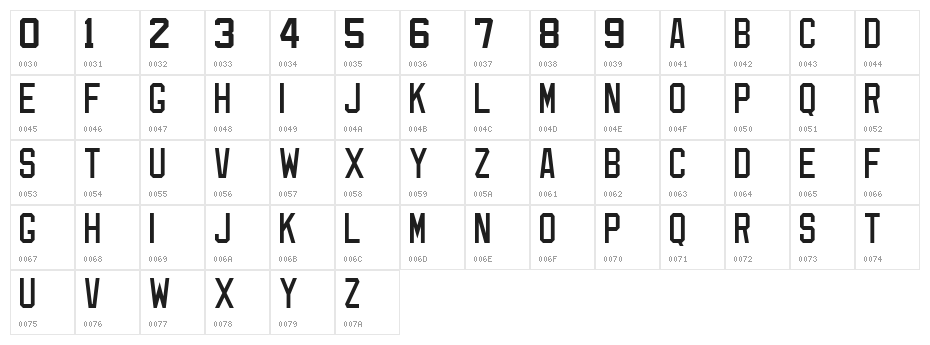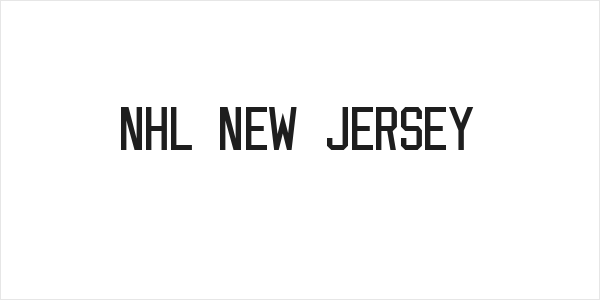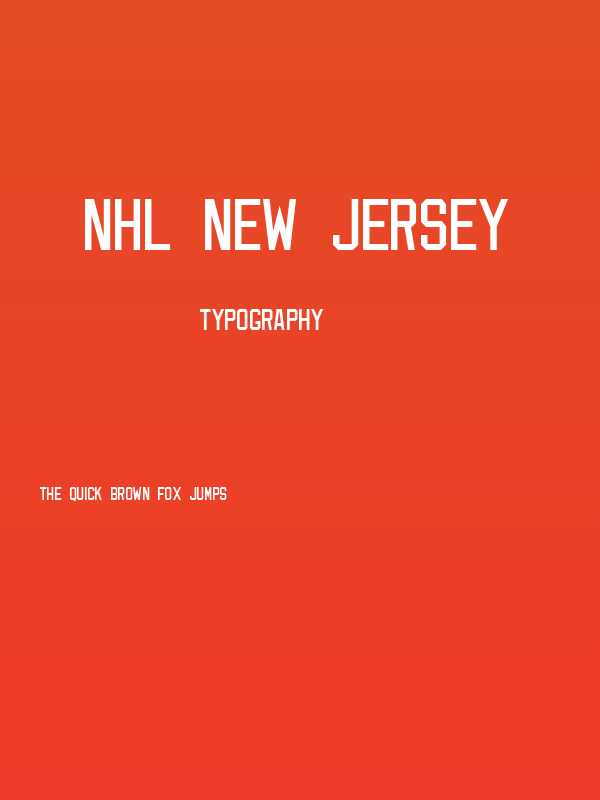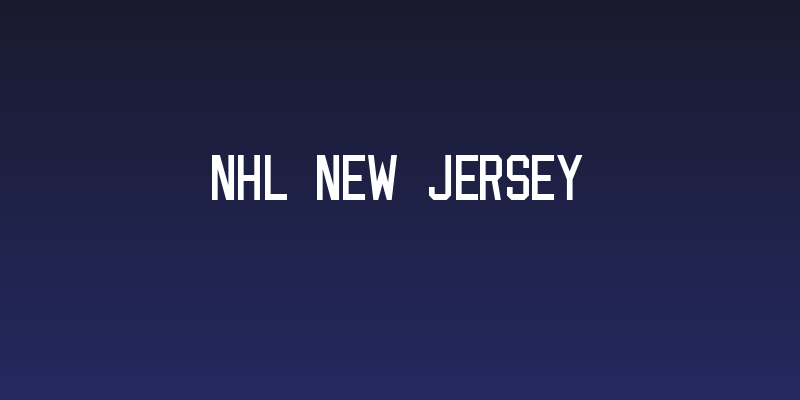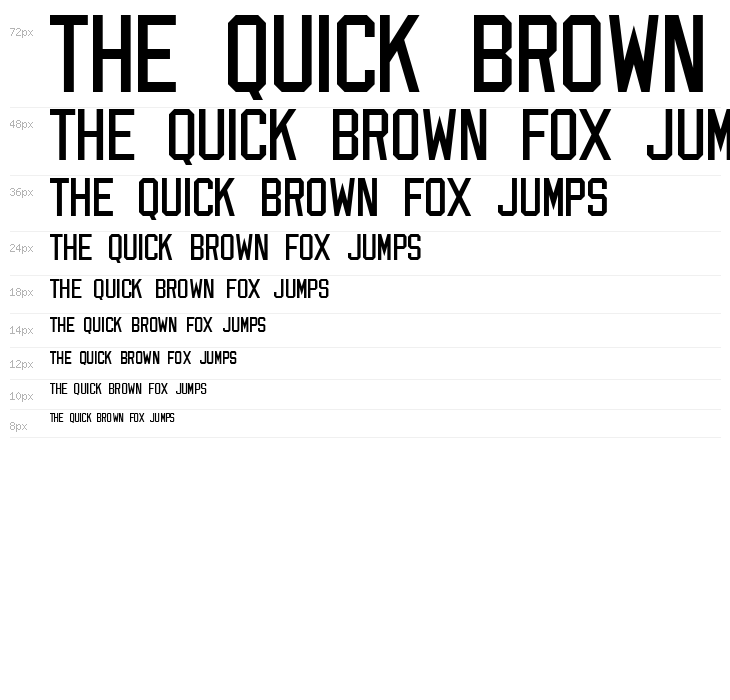
NHL New Jersey Font
NHL New Jersey Description
This font features a bold and geometric design with strong, angular lines and a modern aesthetic. The uppercase letters are uniform in height and width, creating a cohesive and structured appearance. The numerals are equally bold, maintaining the geometric style with sharp edges and consistent proportions. The overall look is clean and impactful, making it suitable for projects that require a strong visual presence. The absence of lowercase letters and special characters suggests a focus on simplicity and clarity.
| Proposed Projects | Ideal for sports team branding, merchandise, posters, and signage where a bold and modern look is desired. |